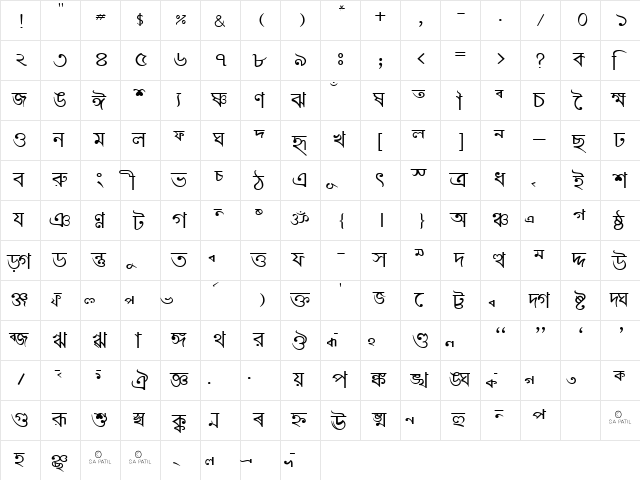
ItxBeng Regular Font Preview
ItxBeng Regular
Design Context for ItxBeng Typeface
ItxBeng takes a measured approach to typography — its balanced proportions and neutral character make it a reliable workhorse for both digital and print work.